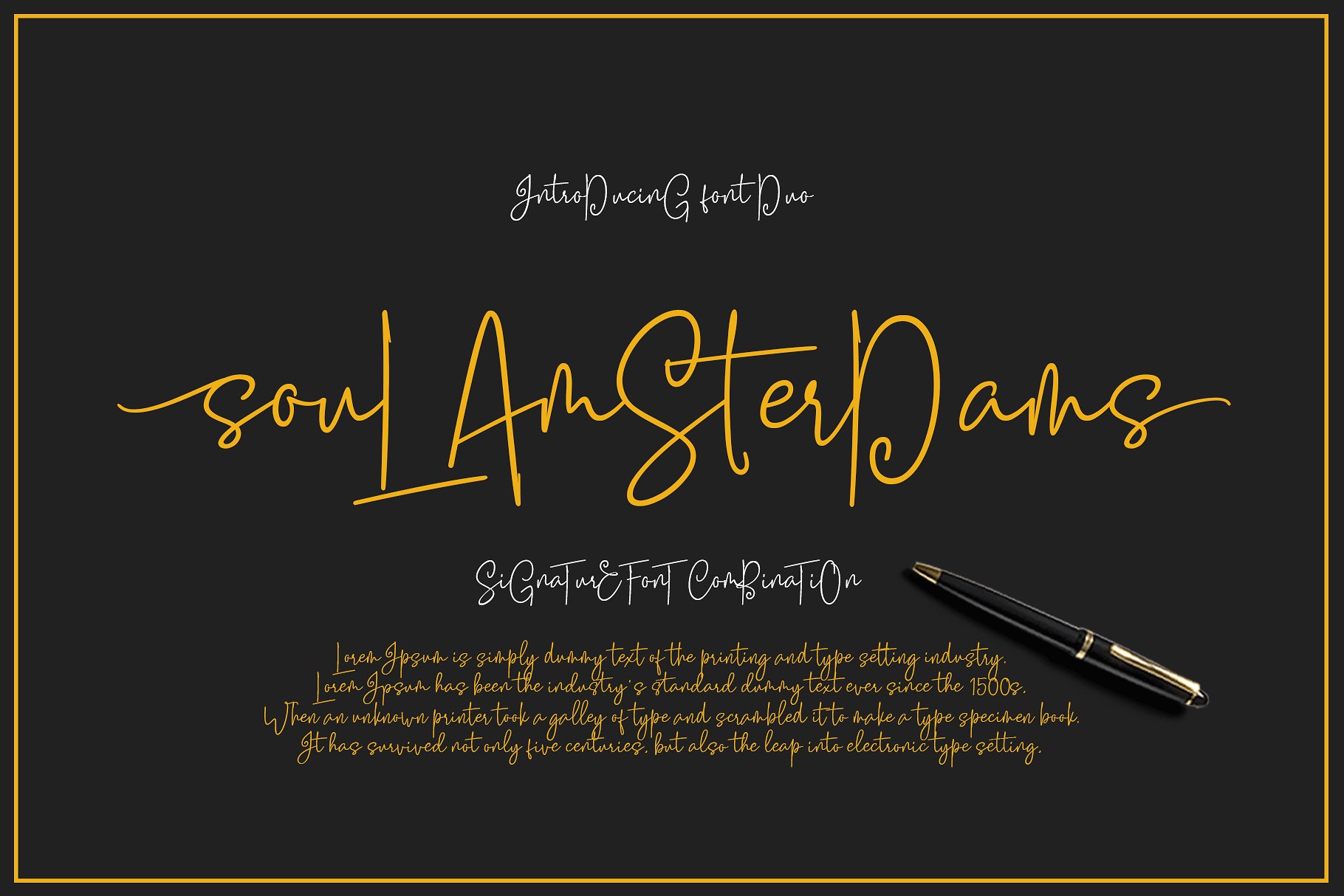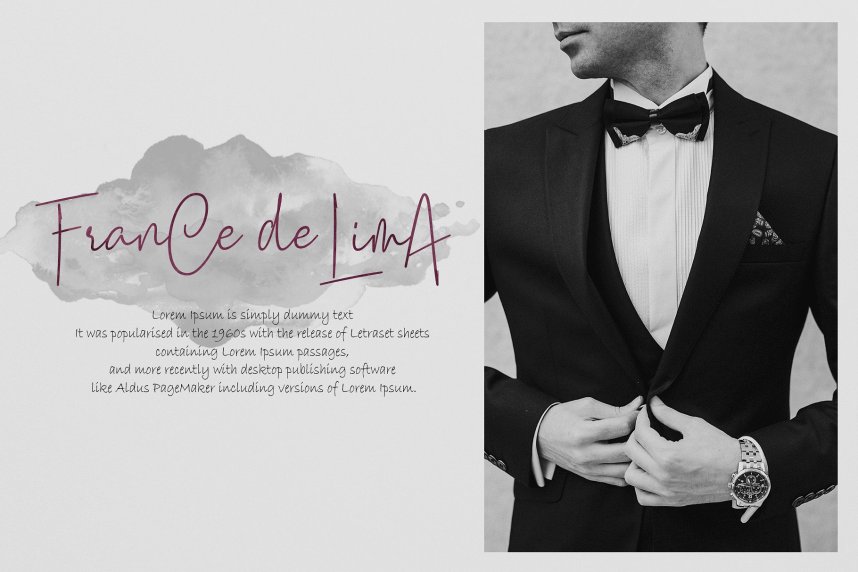
Soul Amsterdams Script Font
Hello…!! Great to see you :). This is new script font, the signature and combination font, simple and easy to create awesome lettering. Introducing Soul Amsterdams Font. Soul Amsterdams Duo, is another lovely modern script, signature and Combination font, which is combining the style of classic calligraphy with an modern style. combines from copperplate to contemporary typeface with a dancing baseline, modern and elegant touch. including alternates, and ligatures.